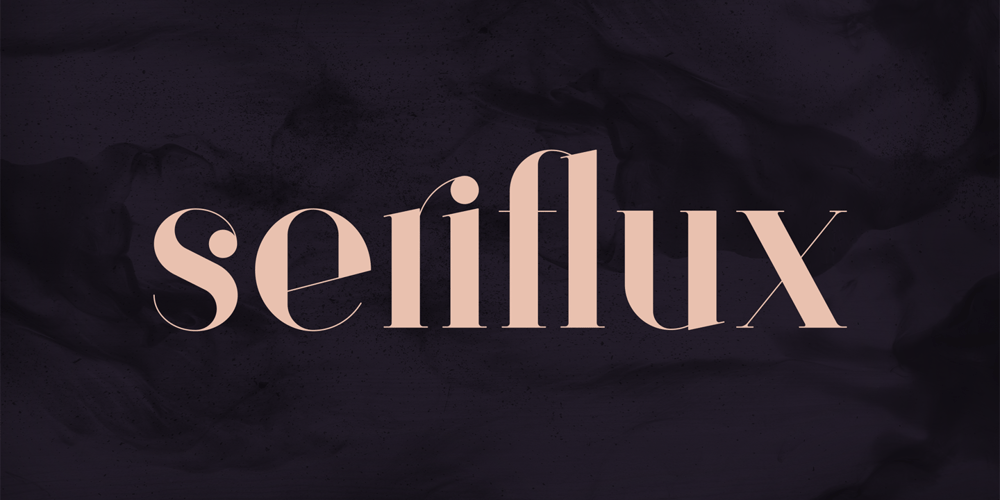
Seriflux Font Family was designed by Vladimir Fedotov, Plamen Petrov and published by VP Creative Shop. Seriflux contains 5 styles and family package options. Introducing Sonder Serif Typeface – 5 weightsSonder is elegant and creative typeface loaded with 5 weights, ligature glyphs, alternates and multilingual support to enchant your next project. Very versatile fonts that works great in large and small sizes.Sonder is perfect for branding projects, home-ware designs, product packaging, magazine headers – or simply as a stylish text overlay to any background image.